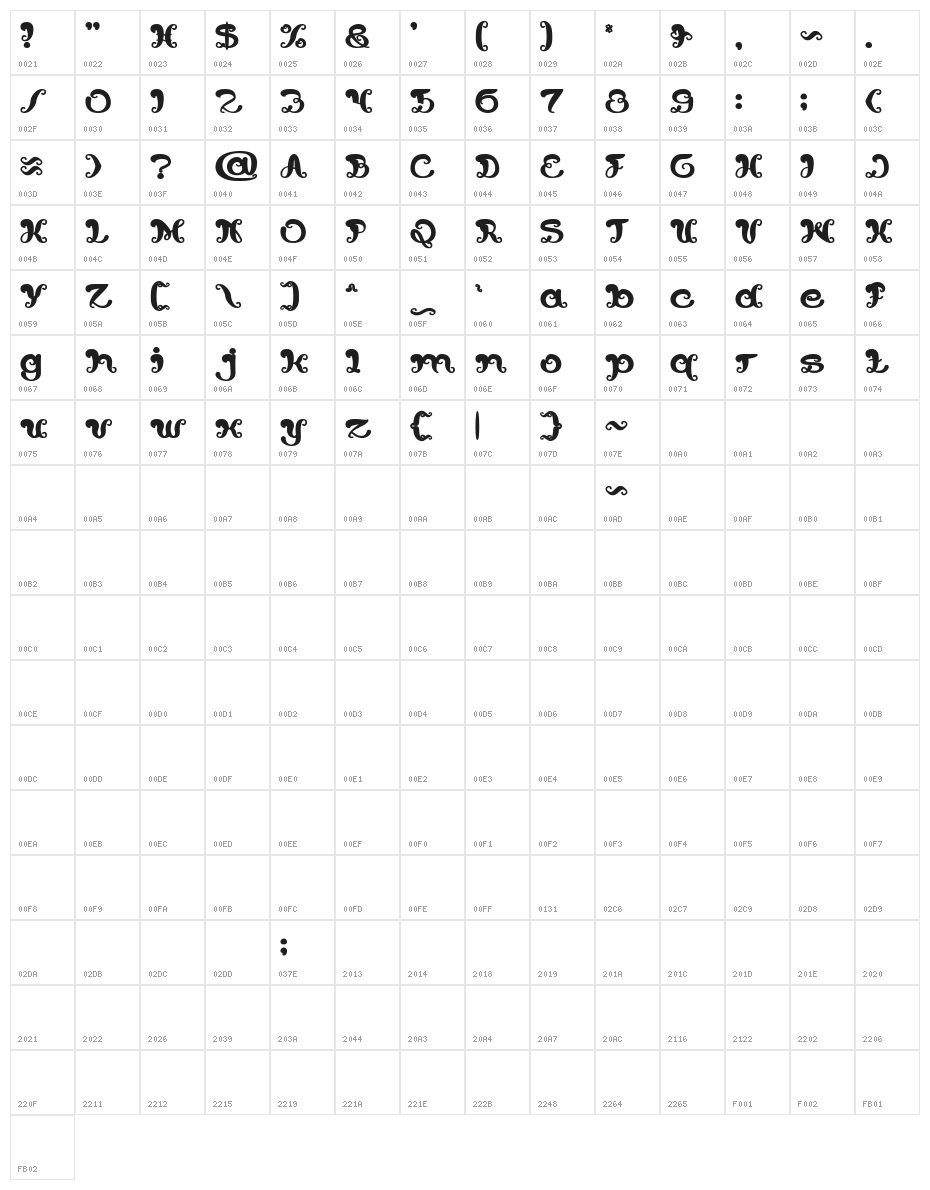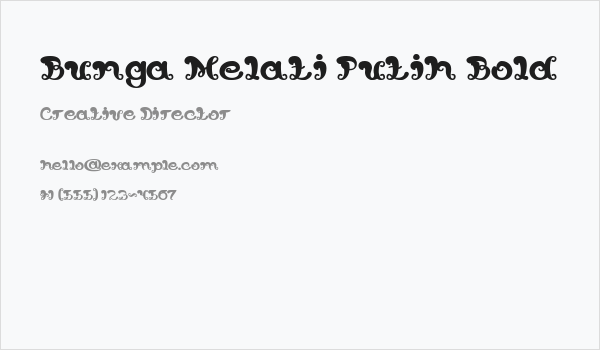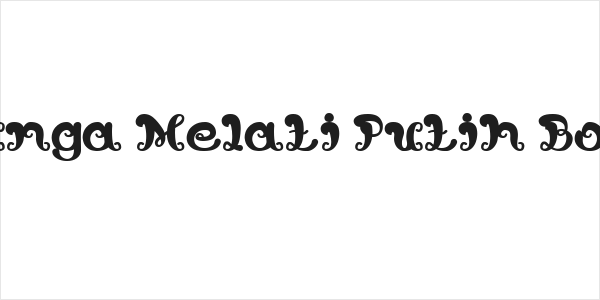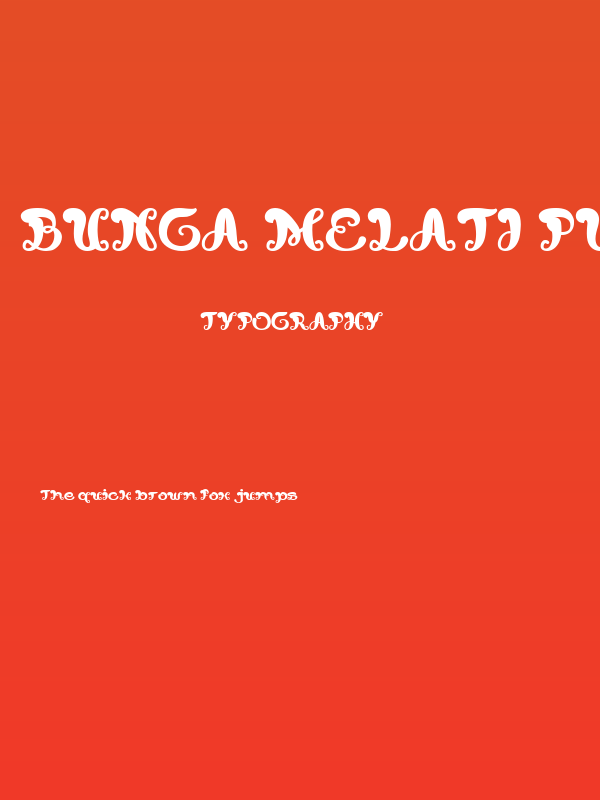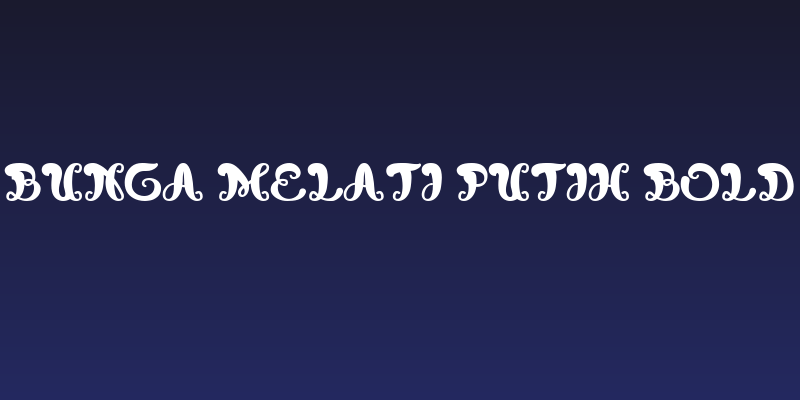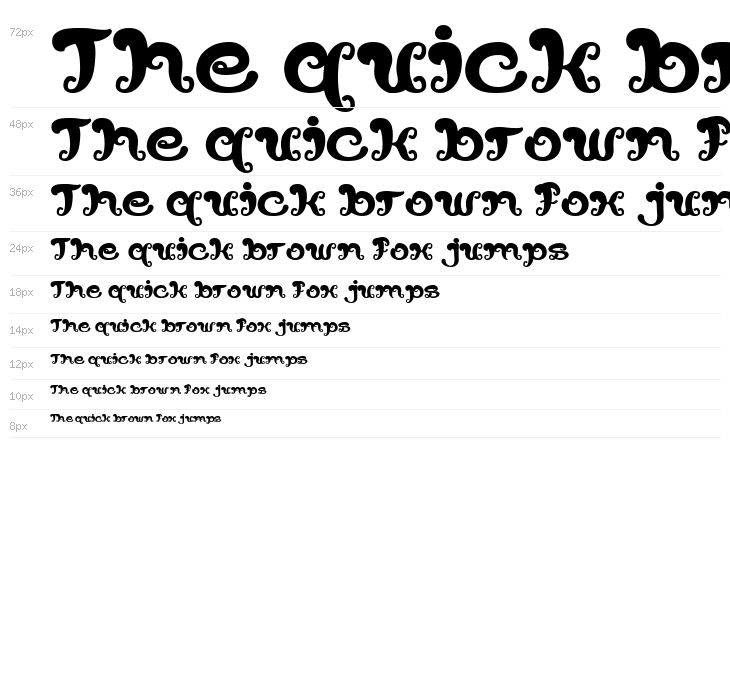
Bunga Melati Putih Bold Font
Bunga Melati Putih Bold Description
This font features a whimsical and decorative style, characterized by its bold and playful curves. Each letter is adorned with unique flourishes, giving it an ornate and artistic appearance. The uppercase and lowercase letters maintain a consistent design theme, with exaggerated loops and swirls that add a touch of elegance and creativity. The numbers and special characters follow the same decorative pattern, ensuring a cohesive look across all elements. This font's distinct style makes it stand out, offering a blend of traditional and artistic flair.
| Proposed Projects | Ideal for creative projects such as invitations, greeting cards, posters, and branding materials that require a touch of elegance and playfulness. |